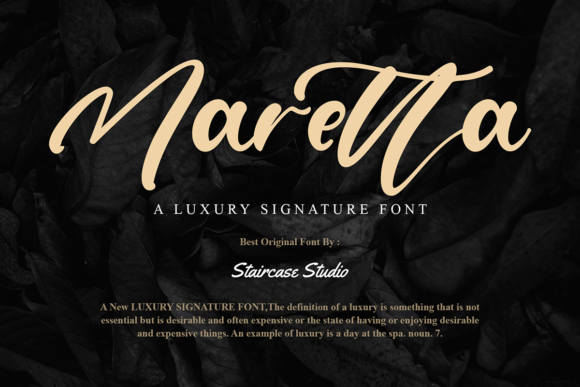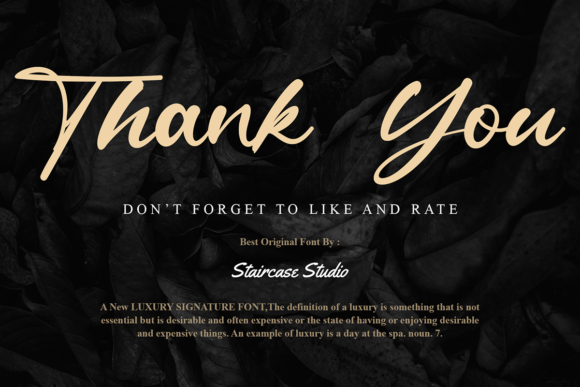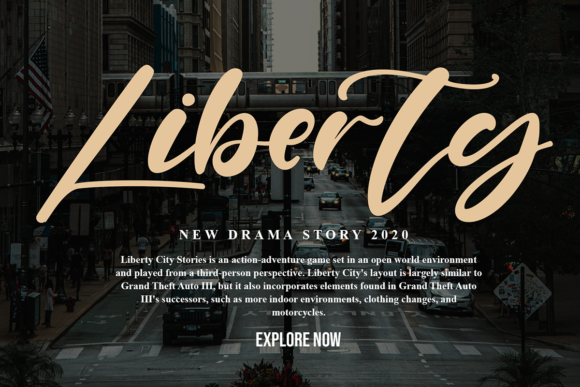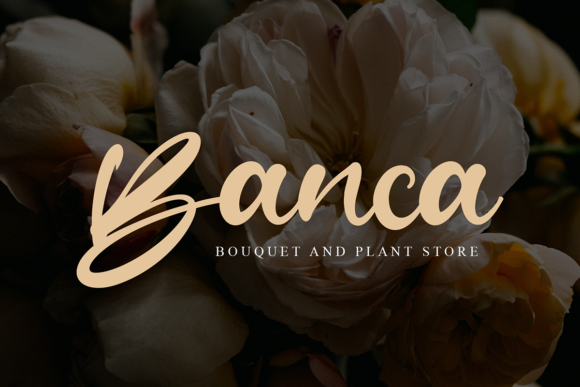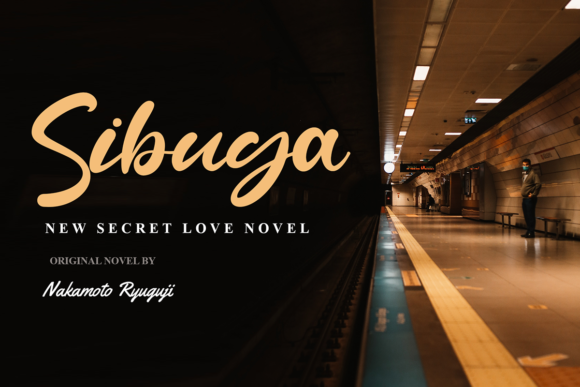
About Maretta Font
Maretta is an alluring and chic script font. It looks stunning on wedding invitations, thank you cards, quotes, greeting cards, logos, business cards and every other design which needs a handwritten touch.